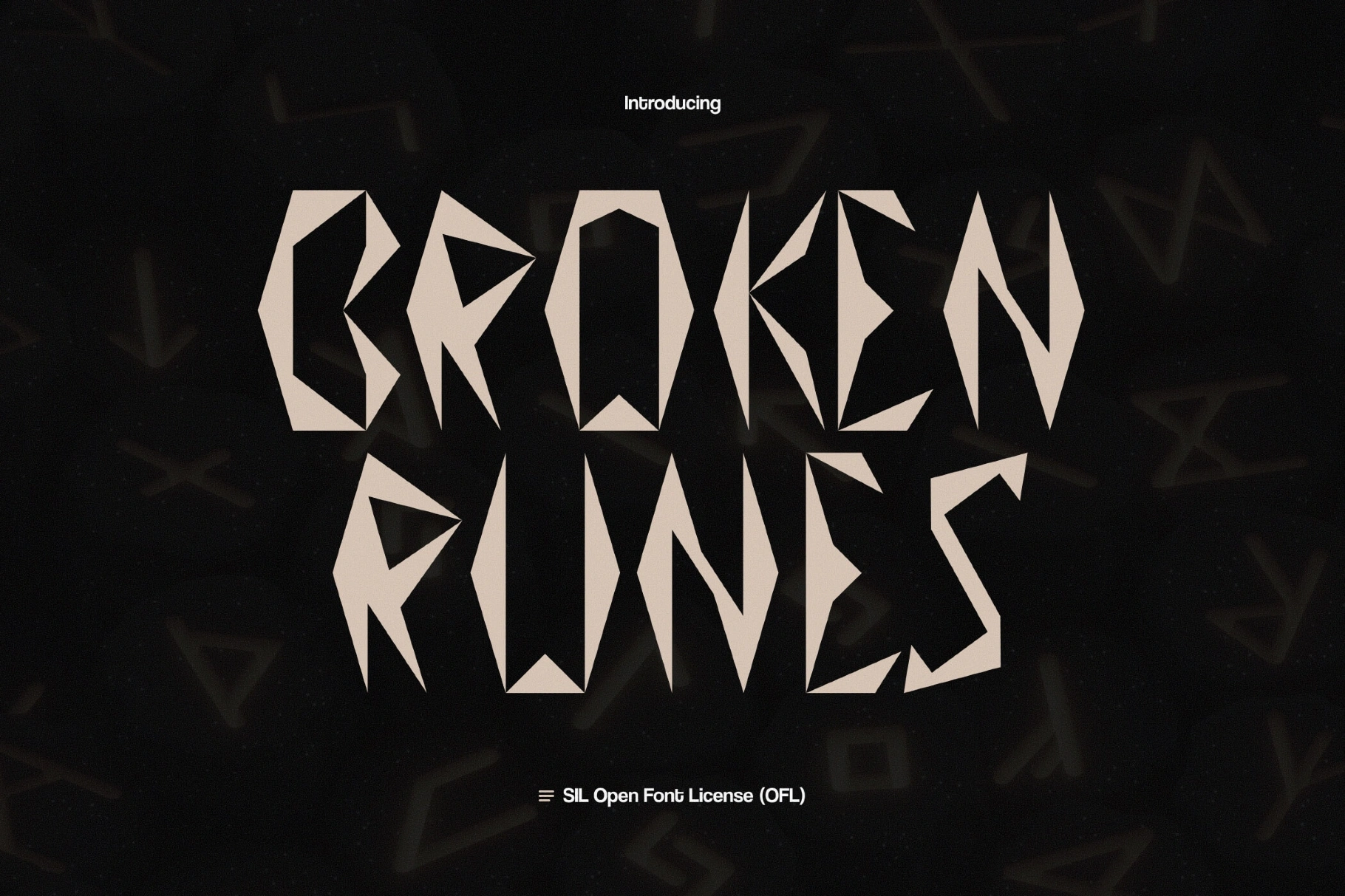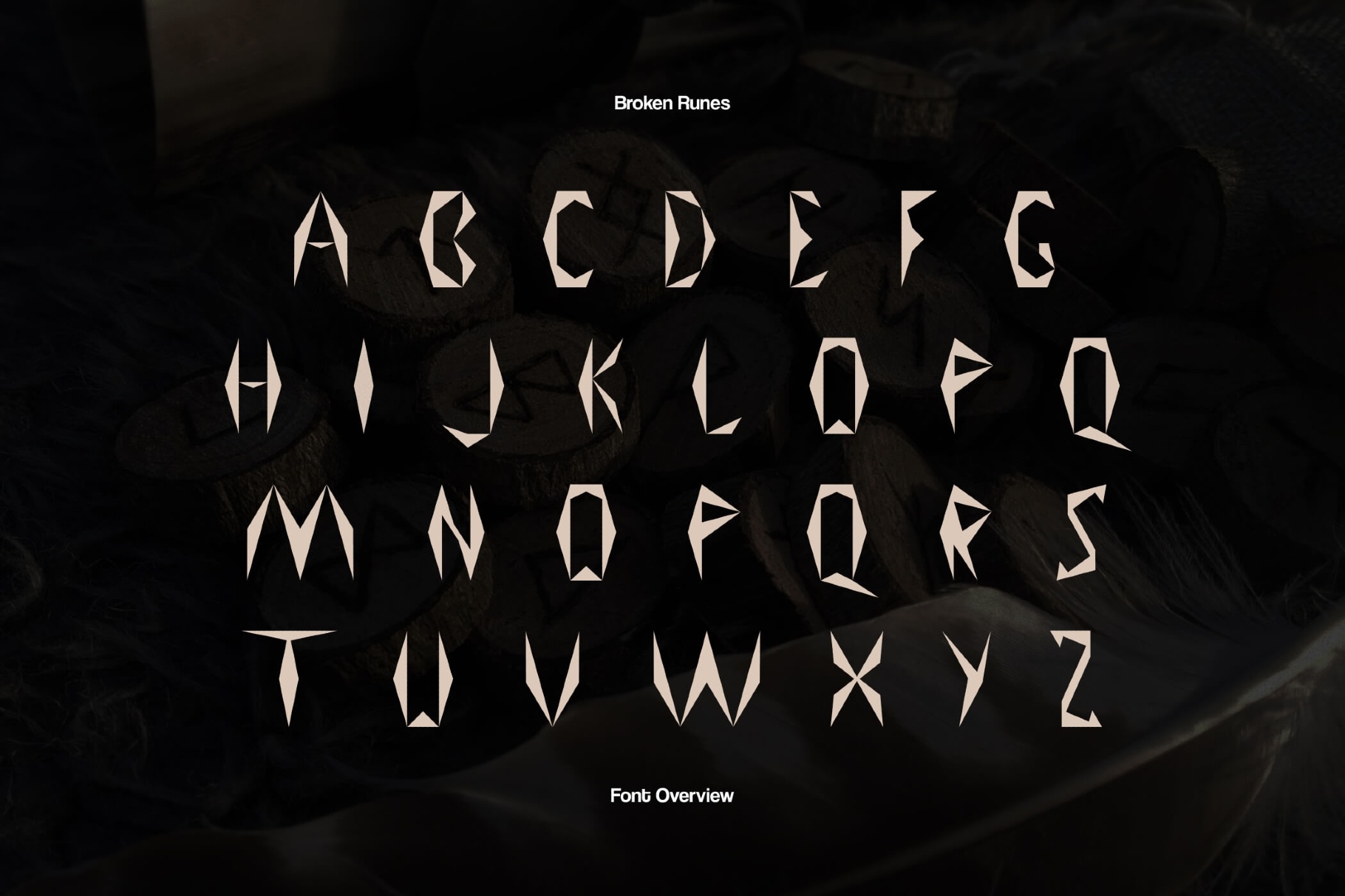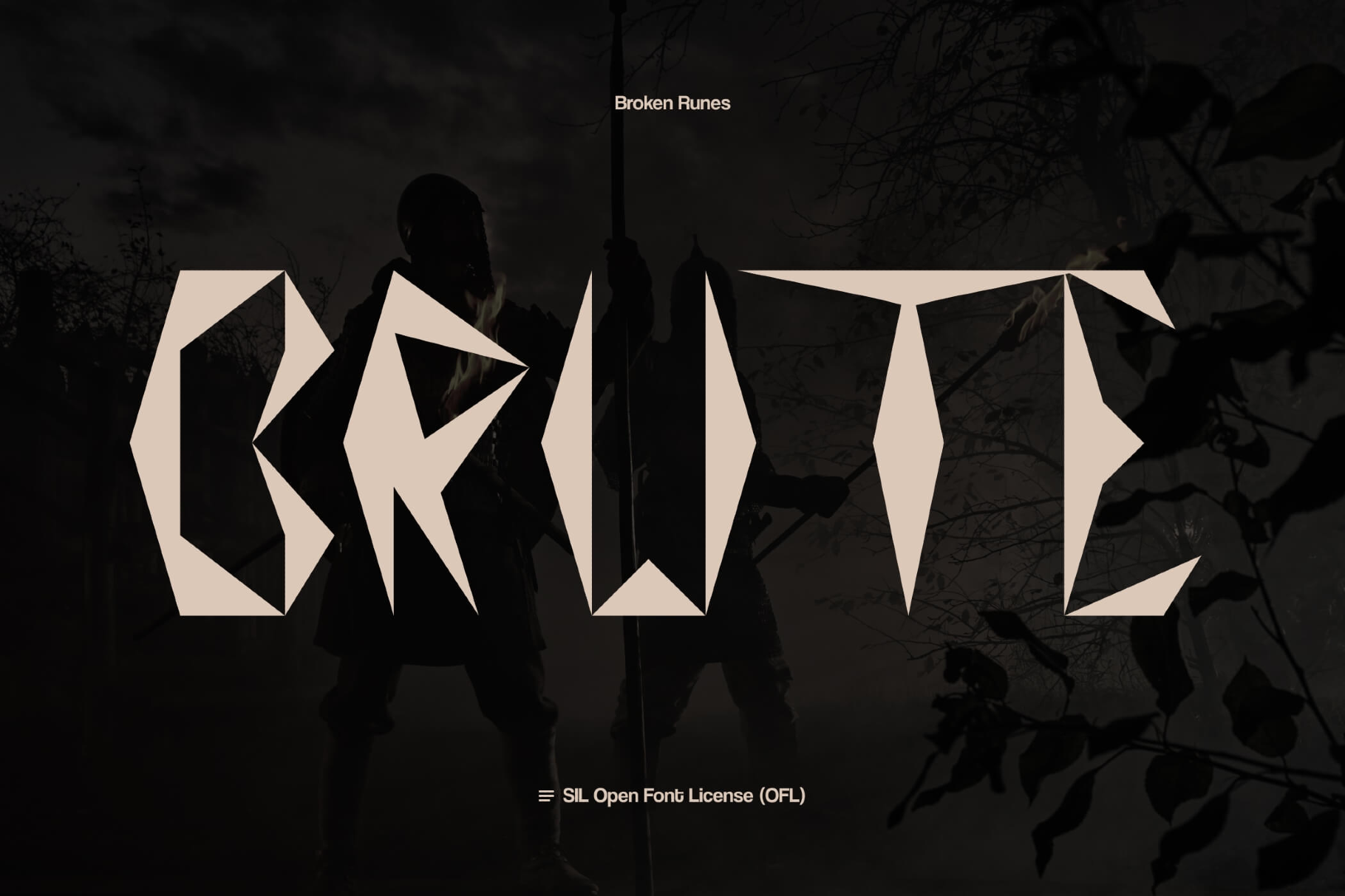
Broken Runes Font
The font gets a carved, stone-like presence. Celtic rune traditions inform the letterforms, but geometric construction and triangular counters push them toward a contemporary sigil style. The words literally look like they were scratched into metal or rock.
Use it for fantasy or mythic game titles, heavy music projects, occult or ritual-themed posters, sword-and-sorcery book covers, tabletop RPG rulebooks and character sheets, themed event branding, and bold marks on apparel or merch.
Includes: uppercase letters only, shaped as standalone symbols that work best in short words, monograms, and emblem-style compositions.